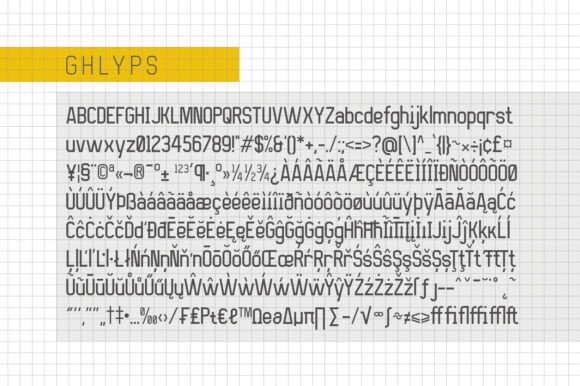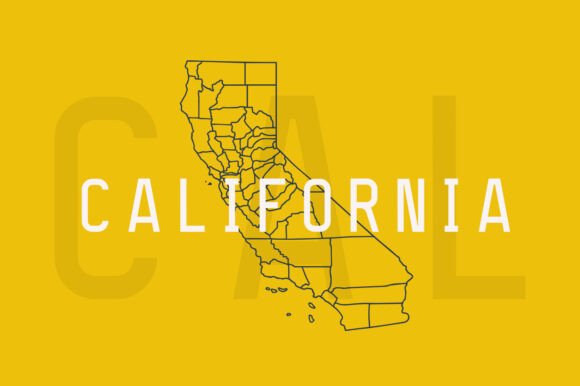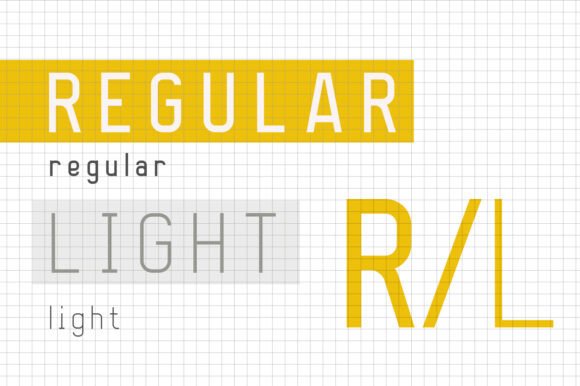
Introduction to Platex Font
Platex is a modern sans serif font that very versatile.
It was inspired by US vehicle license plate but with some modification in its shape, this typeface is suitable for everyday use, personal or commercial work It would be better for display, headline or poster.
Platex Font offers exceptional quality and versatility, making it a valuable addition to your design toolkit. Whether you’re creating for personal projects or commercial use, Platex Font delivers professional results.